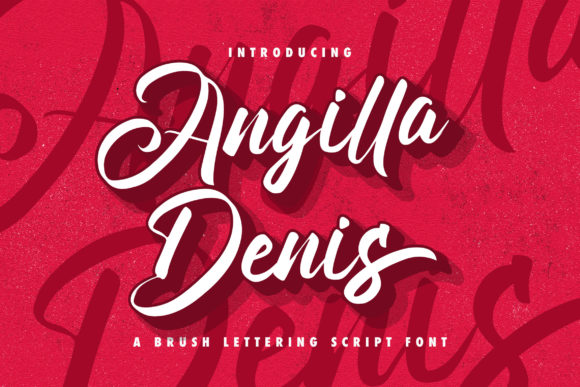
Welcome to the world of Angilla Denis, a modern script font that exudes elegance and sophistication. Crafted with meticulous attention to detail by StringLabs, this font family is a visual masterpiece that captures the essence of timeless beauty. Angilla Denis was created with the intention of offering a font that is both readable and stylish. The smooth curves of each character dance across the page effortlessly, adding a touch of grace to any text.
As a script font, Angilla Denis possesses a distinct personality that sets it apart from the ordinary. Its flowing lines and delicate details bring a touch of femininity and charm to your designs. You'll find this font particularly suitable for fashion branding and editorial layouts, where it adds a touch of luxury and sophistication.
Imagine your logo adorned with Angilla Denis script. The flowing lines will create an imprint of elegance that will leave a lasting impression on your customers. Or envision your blog posts and social media content adorned with this font - the curves of each letter will draw readers in and keep them captivated. Angilla Denis is more than just a font; it's an artistic expression that empowers you to communicate your message with flair and individuality.
Embark on a creative journey with Angilla Denis and unlock a world of possibilities. Let your imagination soar as you explore the endless creative applications of this enchanting font. Add it confidently to your projects, and you'll be amazed at the stunning results. Welcome to the world of Angilla Denis, where elegance and creativity converge.